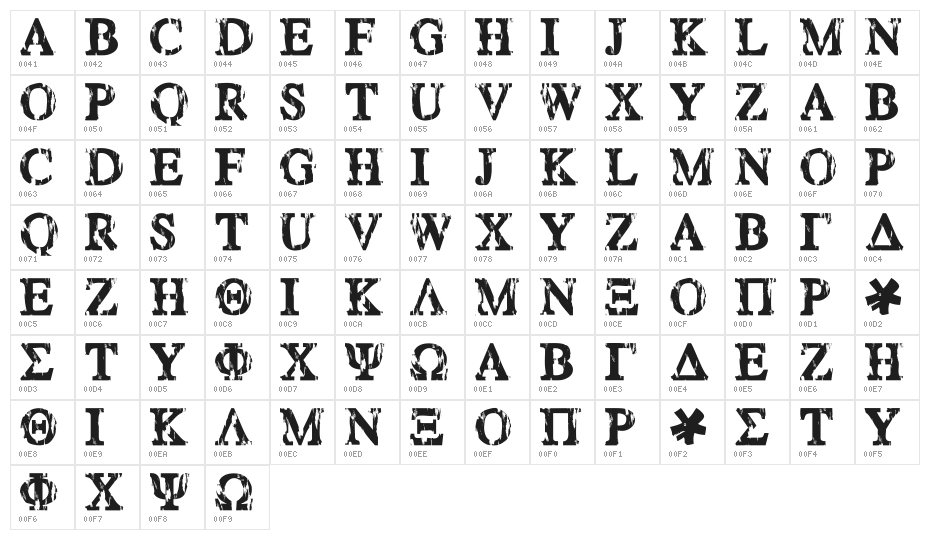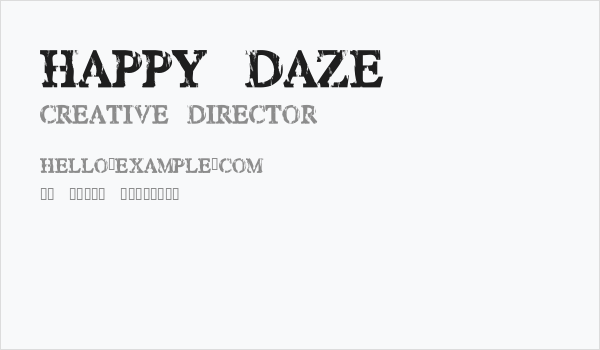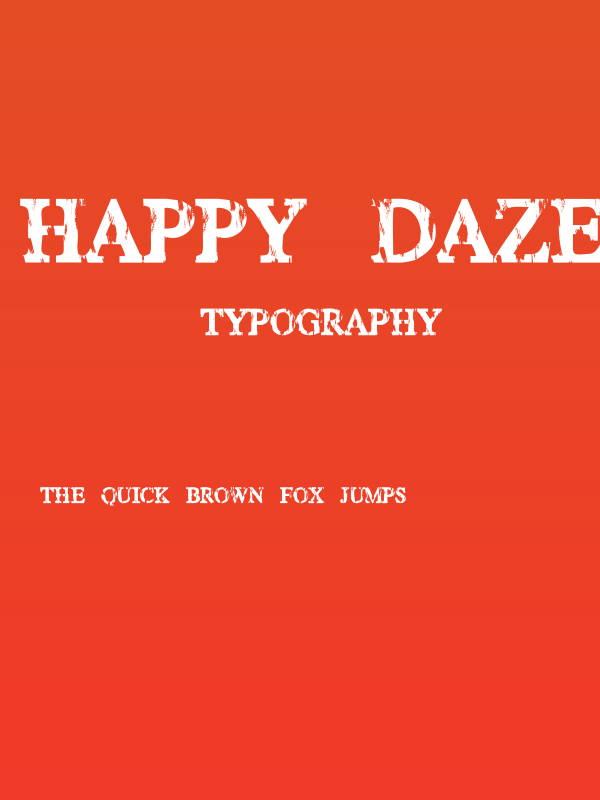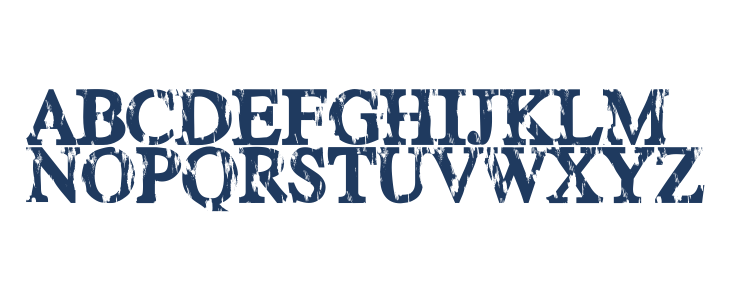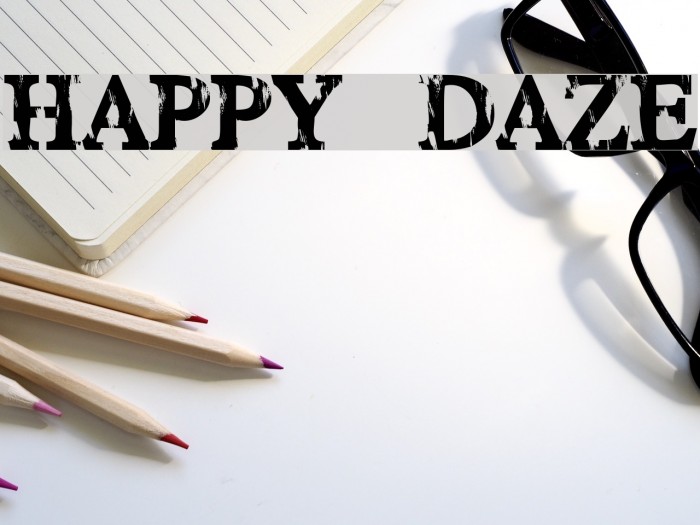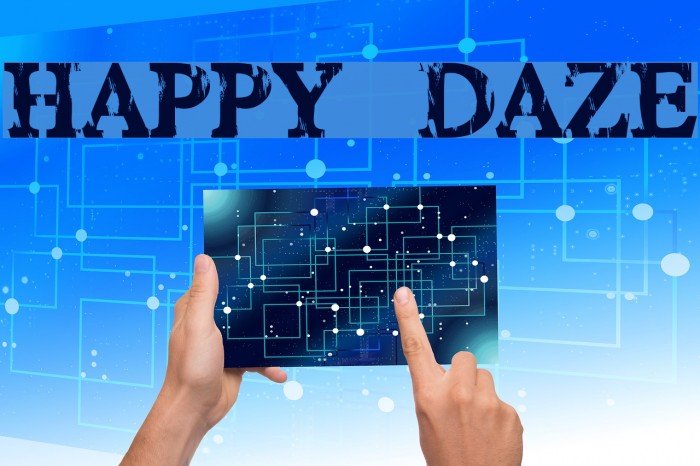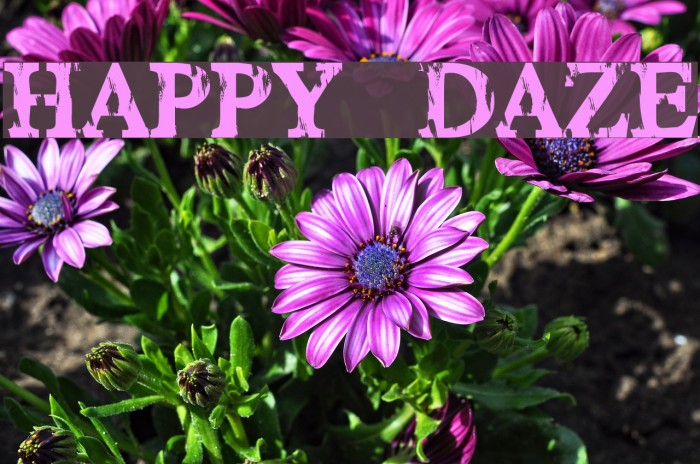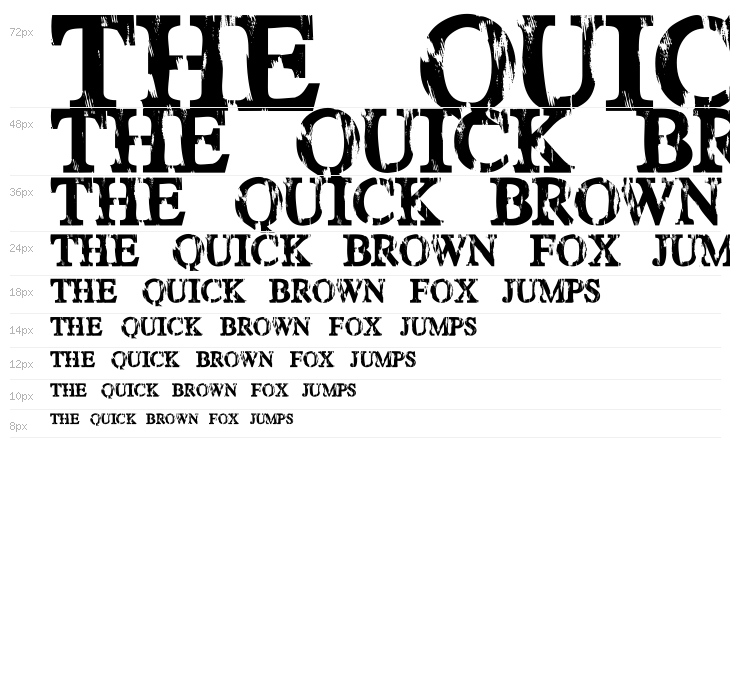
HAPPY DAZE Font
HAPPY DAZE Description
This font features a distressed, grunge style with a bold and impactful presence. The uppercase letters are heavily textured, giving them a worn, vintage appearance that suggests a sense of ruggedness and character. The edges are rough and irregular, contributing to the overall distressed aesthetic. This style is reminiscent of old, weathered signage or print, making it ideal for projects that require a touch of nostalgia or an edgy, rebellious vibe. The font maintains a consistent weight throughout, ensuring readability despite its decorative elements. It is particularly well-suited for headlines or titles where a strong visual impact is desired.
| Proposed Projects | Perfect for album covers, posters, vintage-themed designs, and branding that requires a rugged, edgy look. |